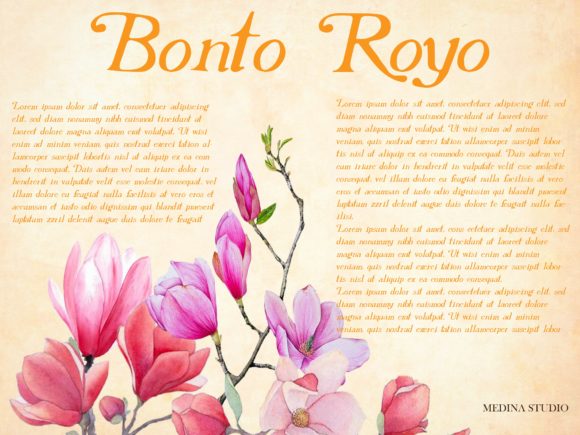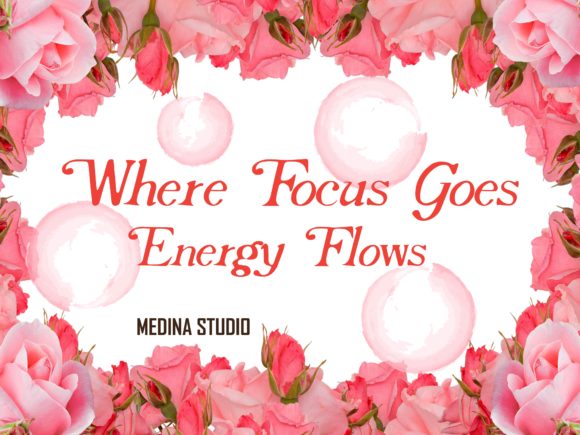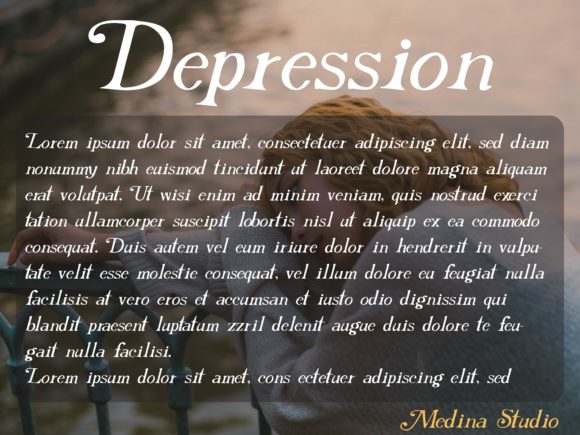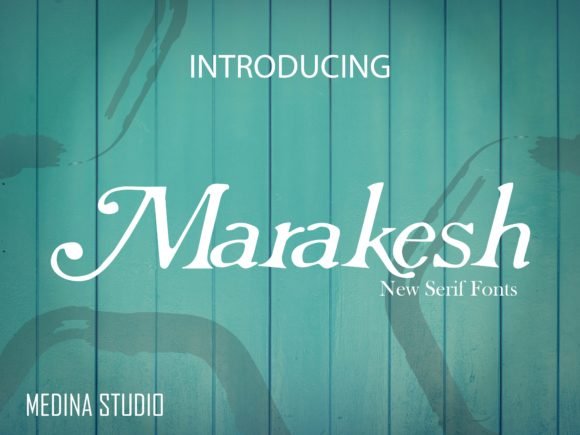
Introduction to Marakesh Font
Marakesh is a vintage styled and elegant serif font.
It is defined by smooth curves and is perfect for fashion branding or editorial designs Add it confidently to your projects, and you will love the results.
Why Choose Marakesh Font?